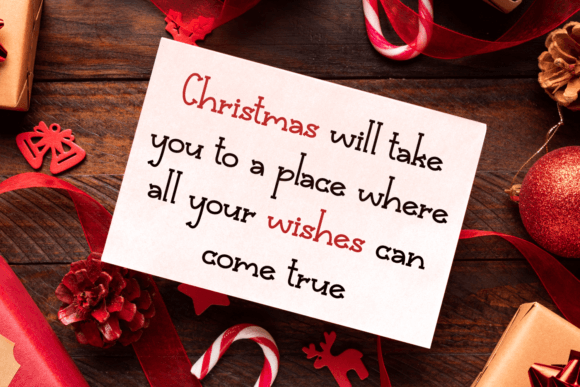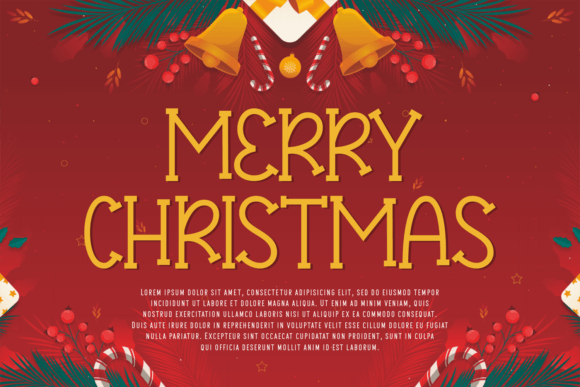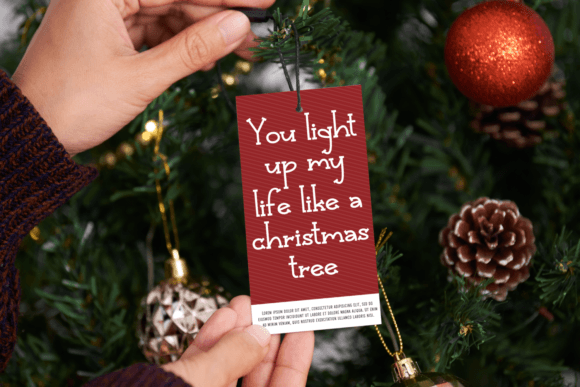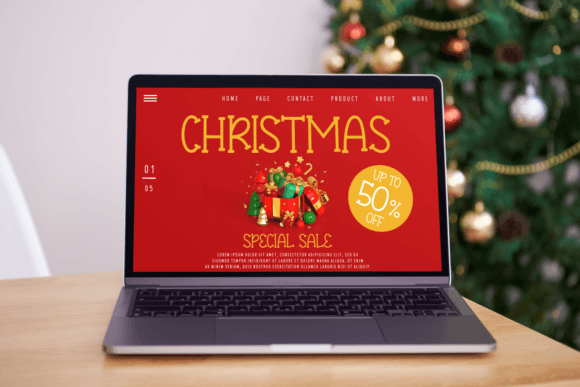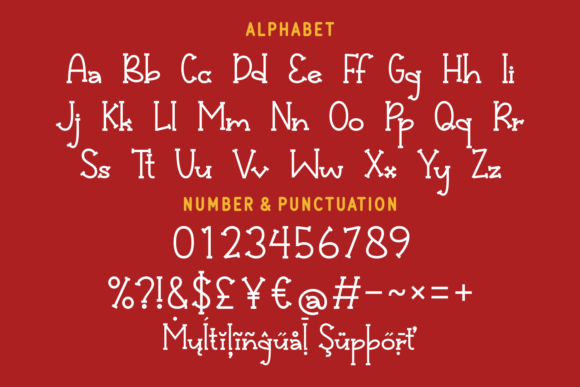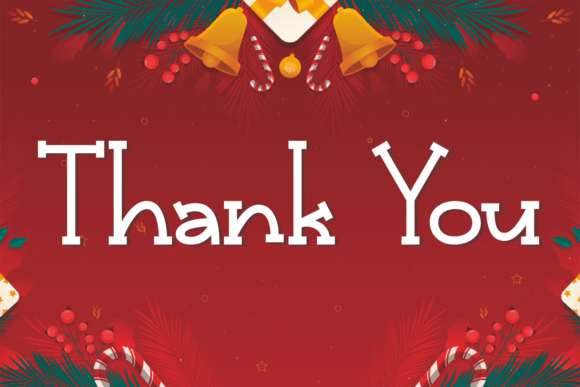
Christmas Skinyline Font – Free Download
Introduction to Christmas Skinyline Font
Christmas Skinyline is a quirky and whimsical serif font featuring cute characters.
It is perfect for making your branding, advertisements, logos, or creative projects more fun and appealing .
Key Features of Christmas Skinyline Font
Why Choose Christmas Skinyline Font?
Christmas Skinyline Font offers exceptional quality and versatility, making it a valuable addition to your design toolkit. Whether you’re creating for personal projects or commercial use, Christmas Skinyline Font delivers professional results.